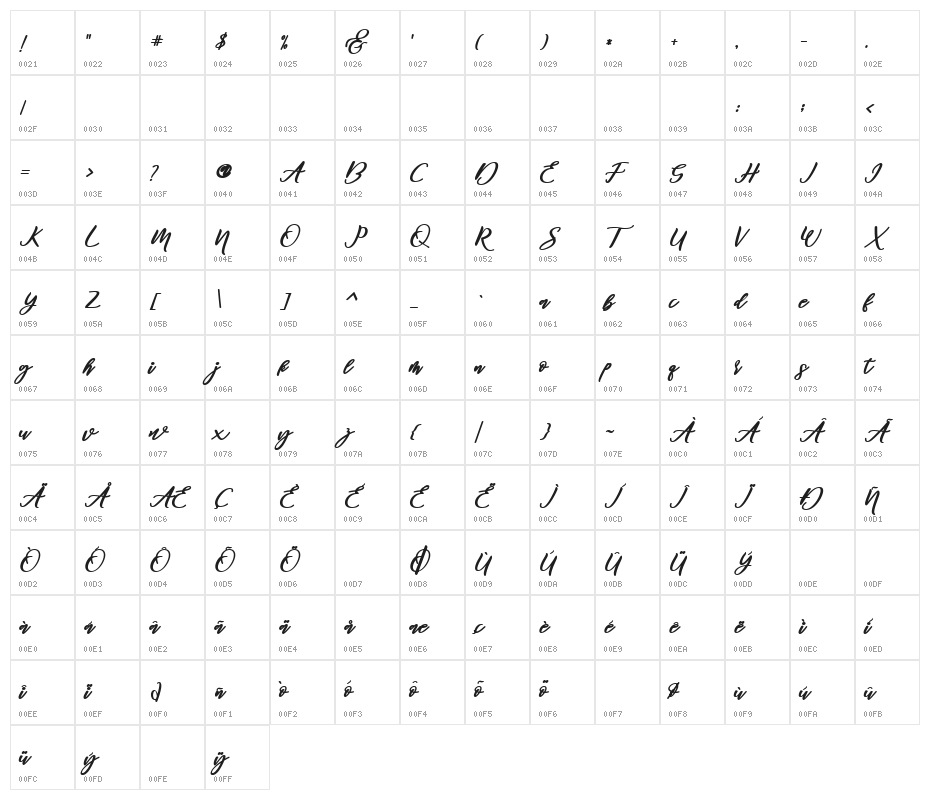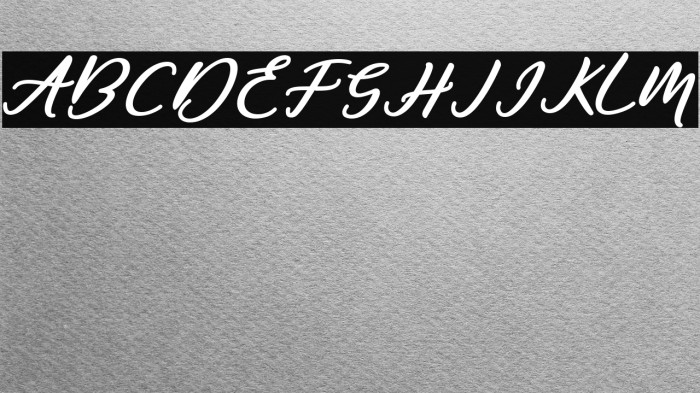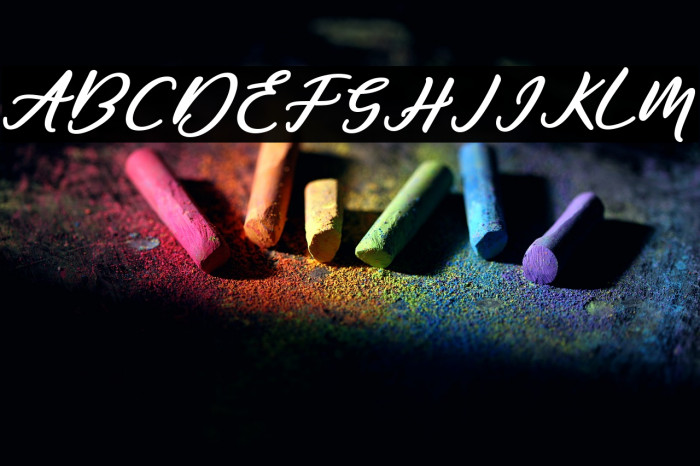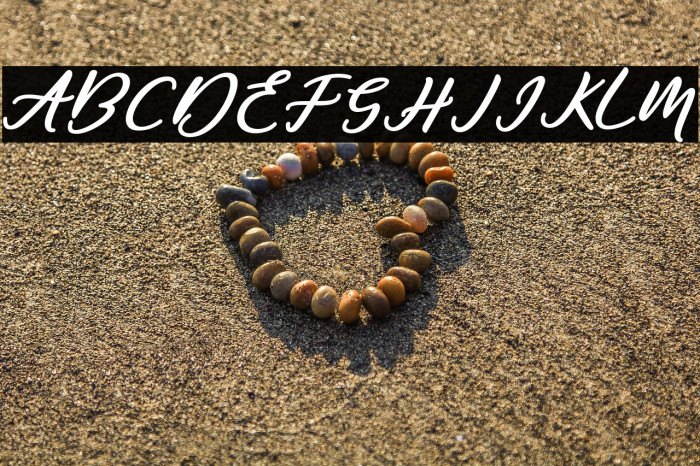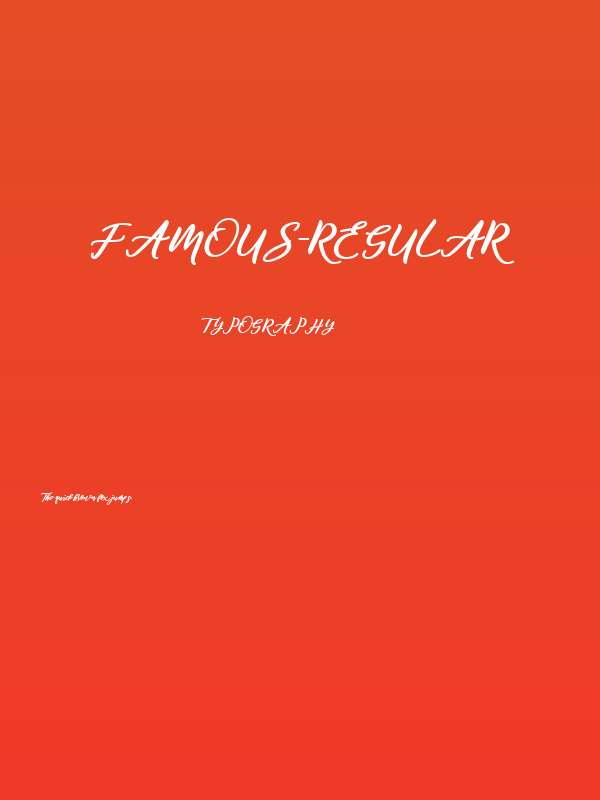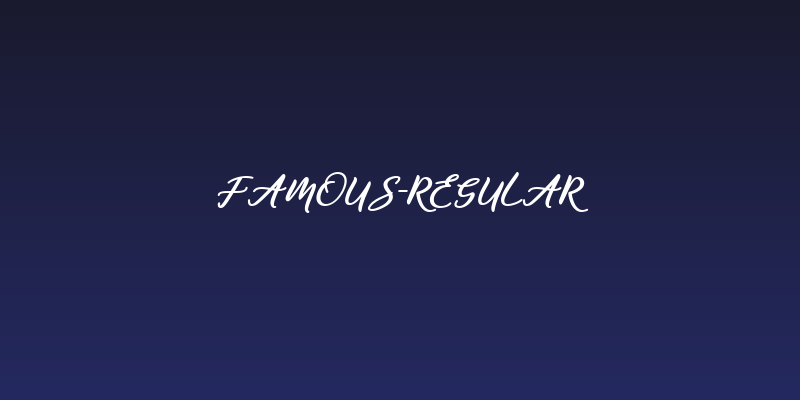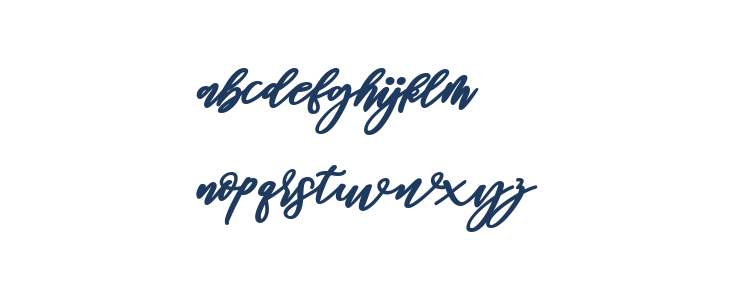
Famous-Regular Font
Famous-Regular Description
This font features a flowing, cursive style with a modern touch. The characters are connected, giving it a handwritten appearance that is both elegant and casual. The uppercase letters are slightly more elaborate, with sweeping curves and loops, while the lowercase letters maintain a consistent flow. The numbers and special characters are designed to match the overall style, ensuring a cohesive look across all text. The font's smooth curves and balanced proportions make it suitable for a variety of design projects.
| Use Case | Logos, Invitations, Greeting Cards |
| Proposed Projects | Ideal for wedding invitations, greeting cards, branding, and logo design. |